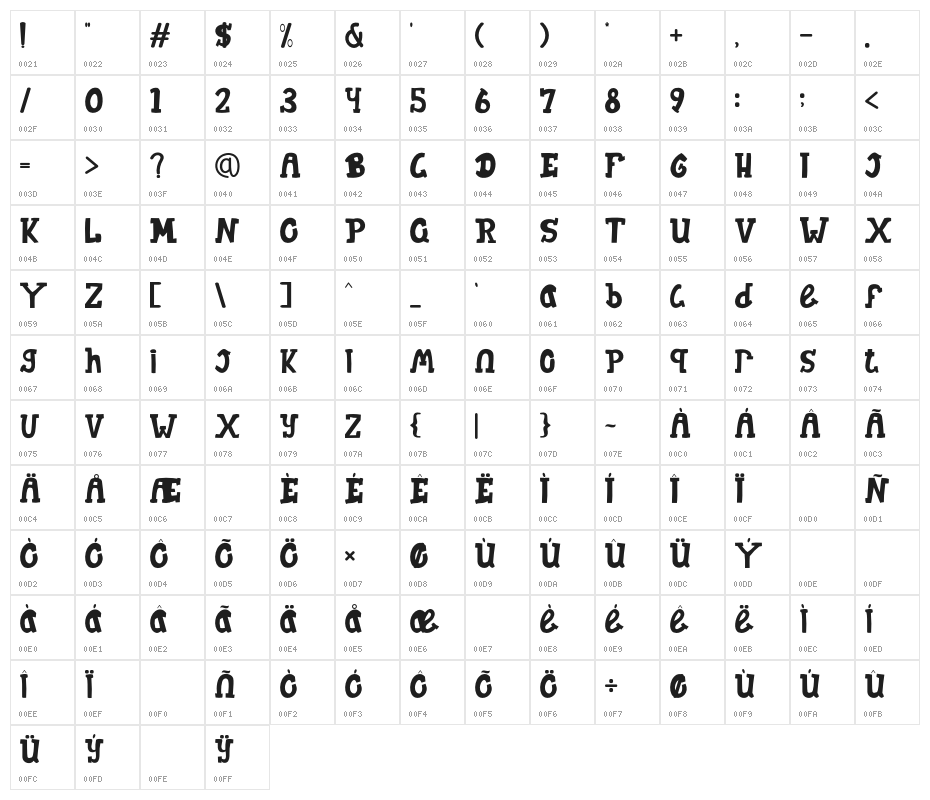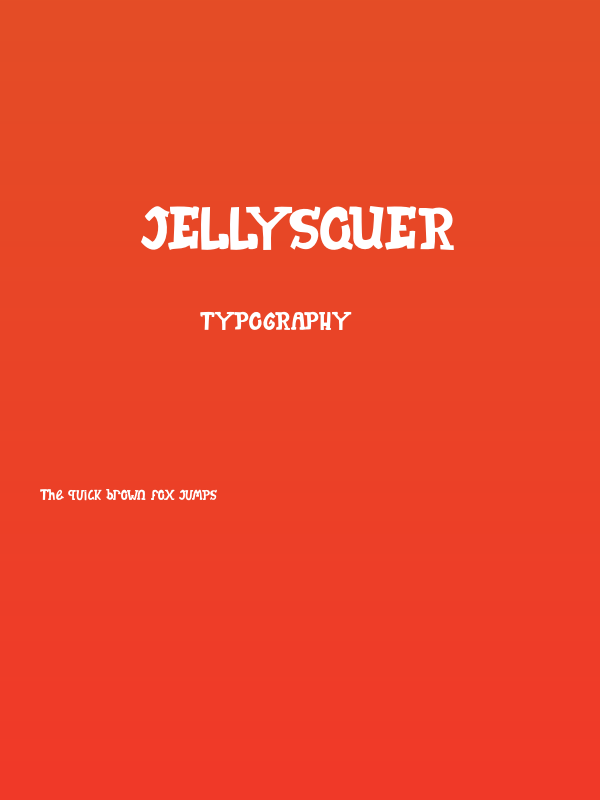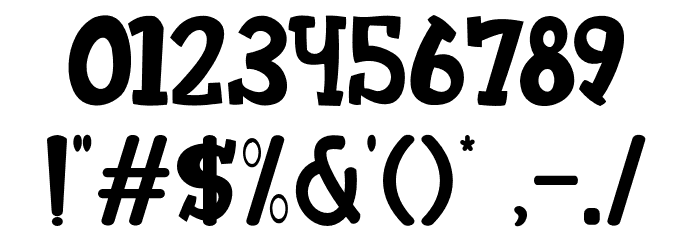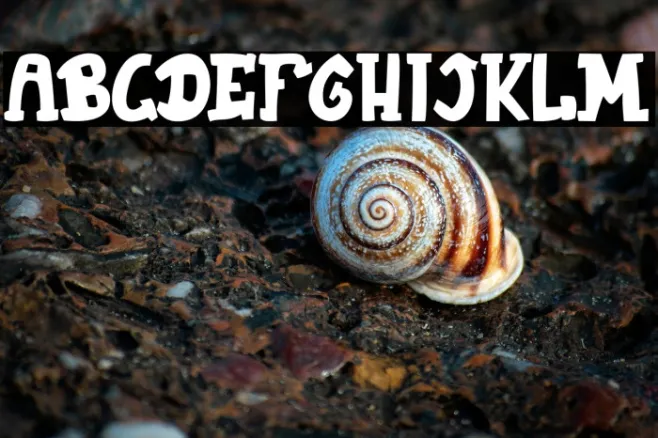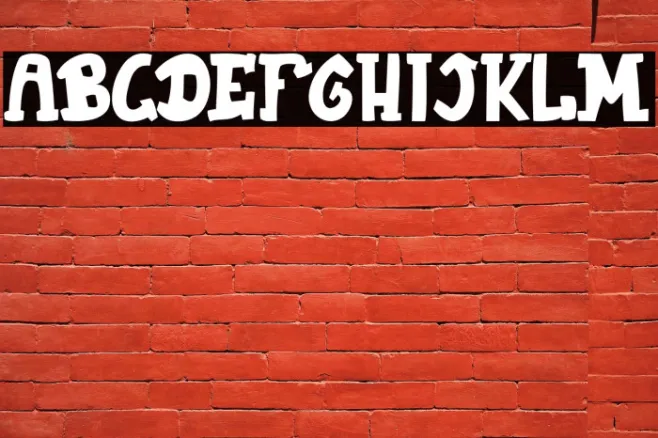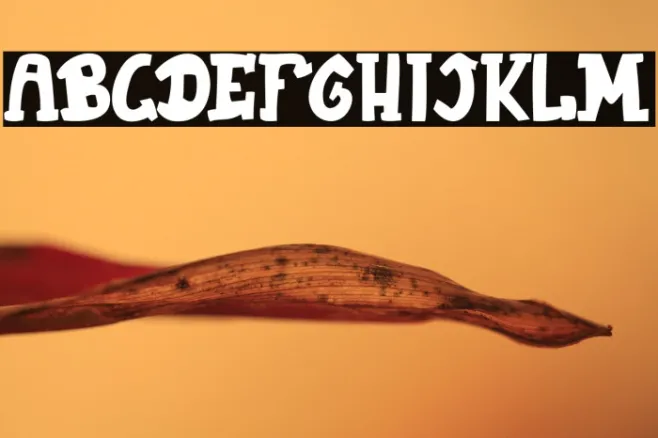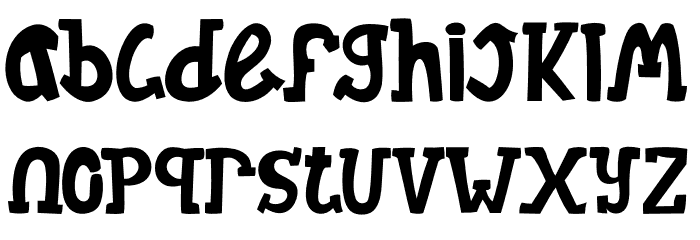
JellySquer Font
JellySquer Description
This font features a playful and whimsical design with bold, rounded characters that convey a sense of fun and creativity. The letters are slightly irregular, giving them a hand-drawn appearance that adds to their charm. The uppercase and lowercase letters maintain a consistent style, with exaggerated curves and a lively bounce. The numbers and special characters follow the same playful aesthetic, making the font suitable for projects that require a touch of humor and lightheartedness. The overall look is both approachable and distinctive, making it ideal for designs that aim to stand out.